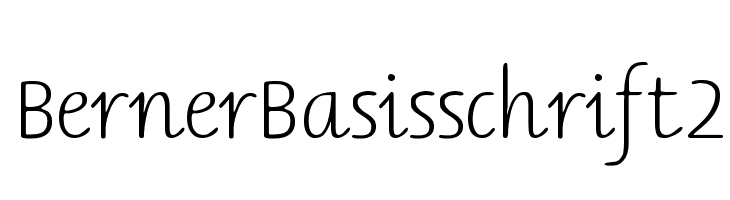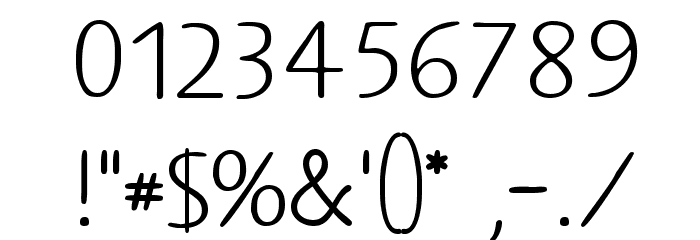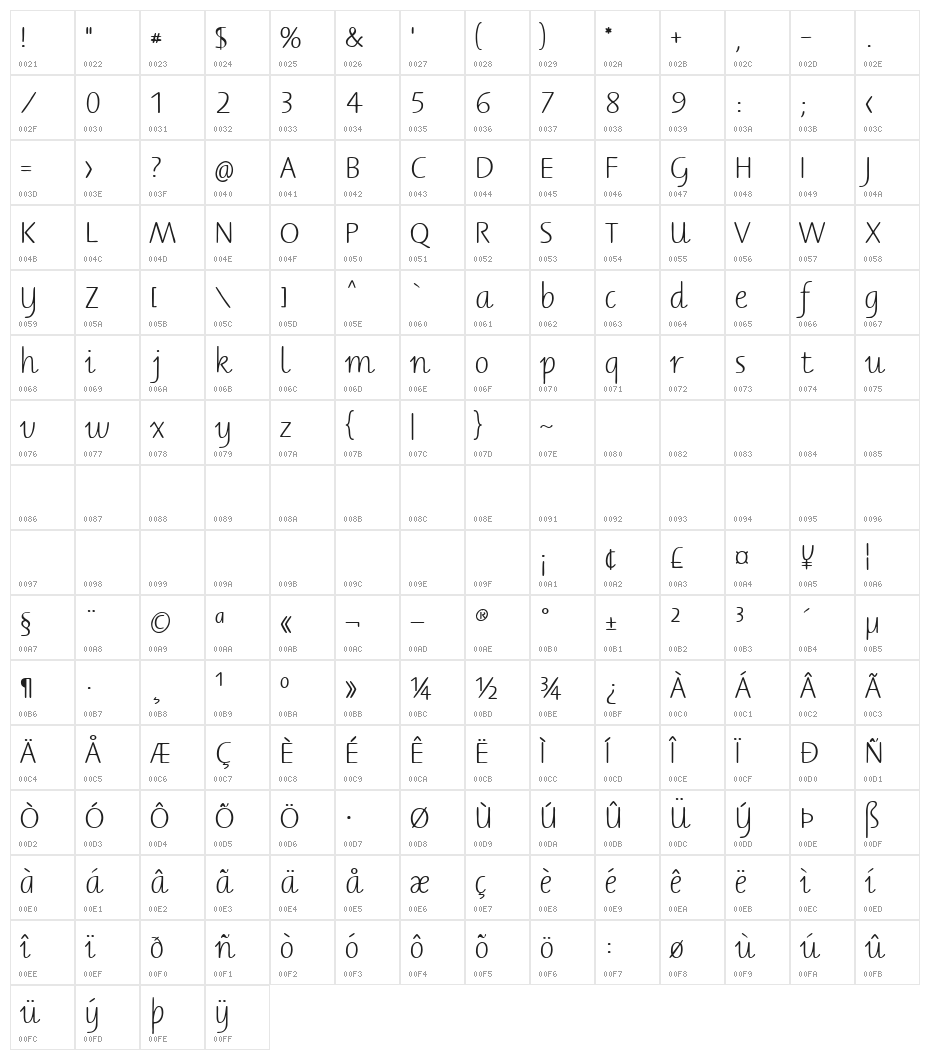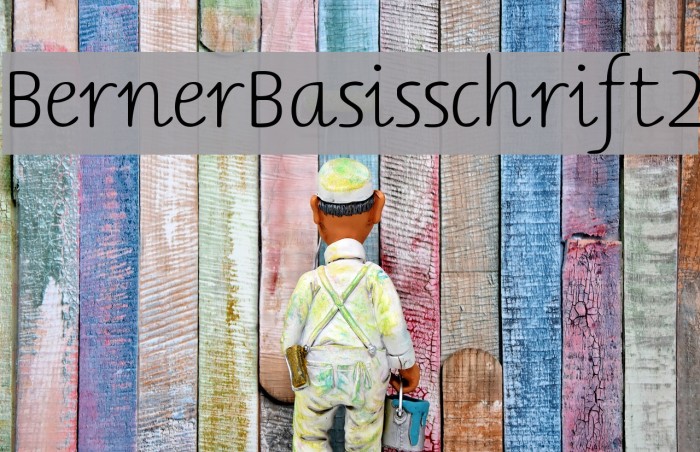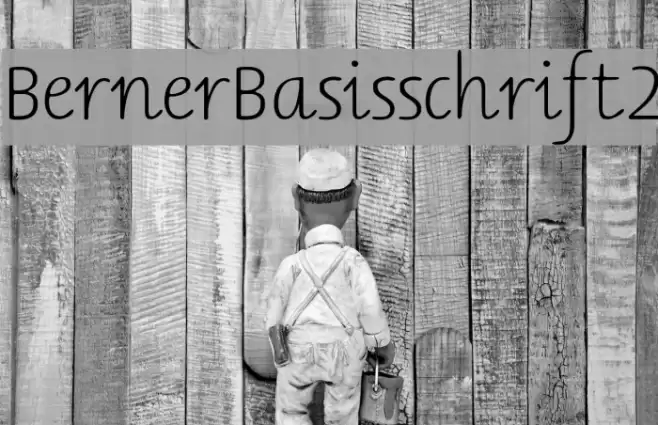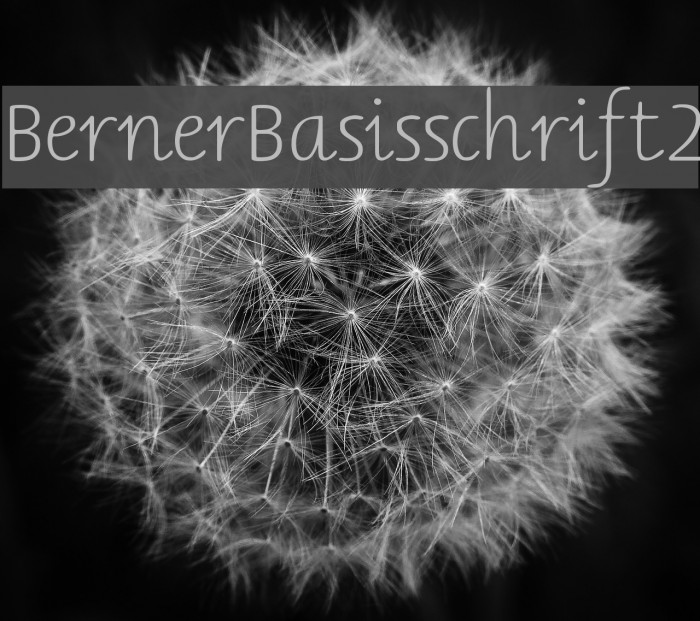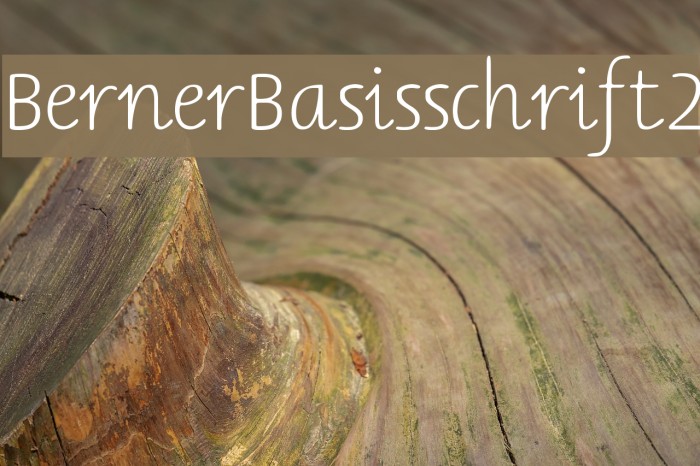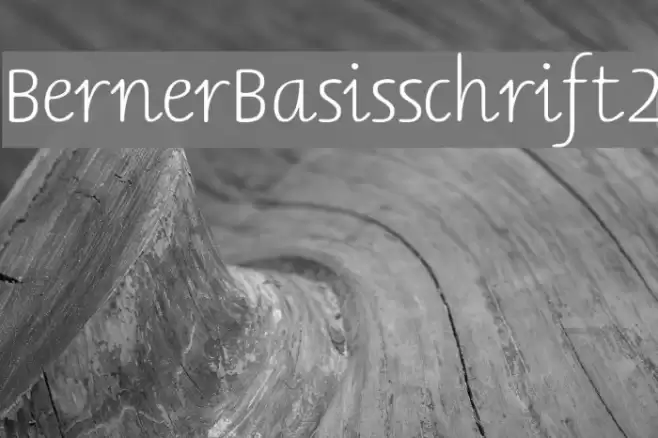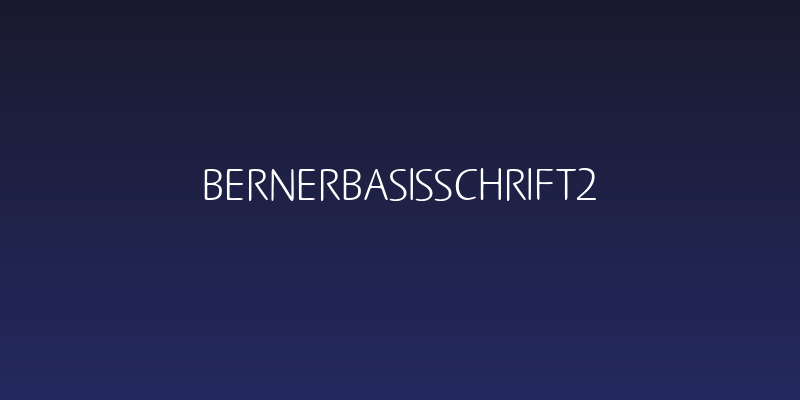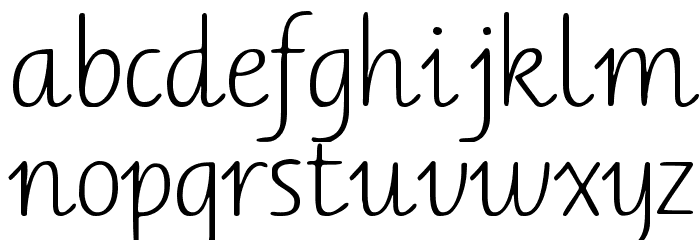
BernerBasisschrift2 Font
BernerBasisschrift2 Description
This font features a clean and approachable design with a handwritten style that maintains legibility. The characters have a consistent stroke width, giving them a uniform appearance. The rounded edges and slight slant add a friendly and informal touch, making it suitable for various applications. The numerals and special characters are well-integrated, maintaining the overall aesthetic. This font is versatile, offering a balance between casual and professional, making it ideal for educational materials, personal projects, and creative designs.
| Use Case | Educational materials, personal projects, creative designs. |
| Proposed Projects | Ideal for educational materials, personal projects, creative designs, and informal communications. |